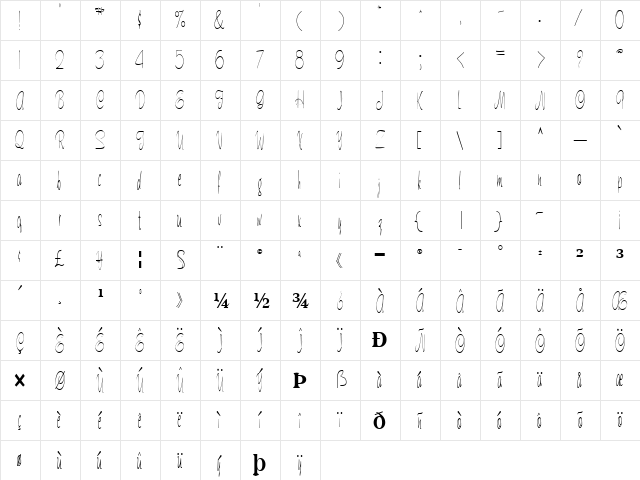
LucyFont95 Regular
Design Context for LucyFont95 Typeface
LucyFont95 is a composed and adaptable typeface that performs quietly and consistently across a wide range of design contexts.